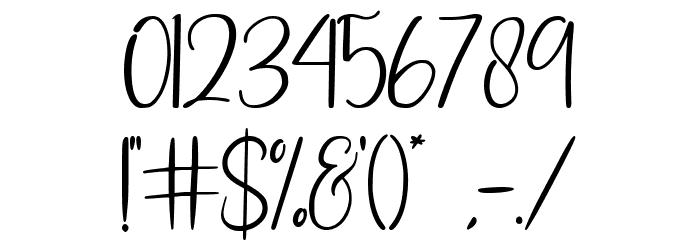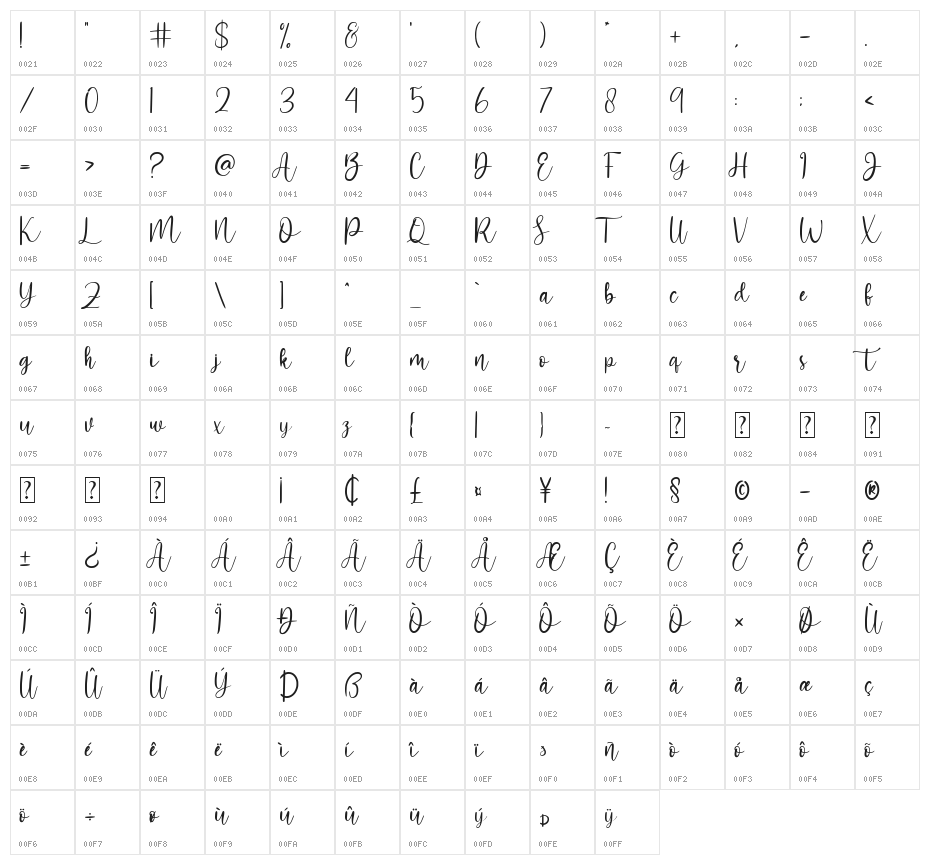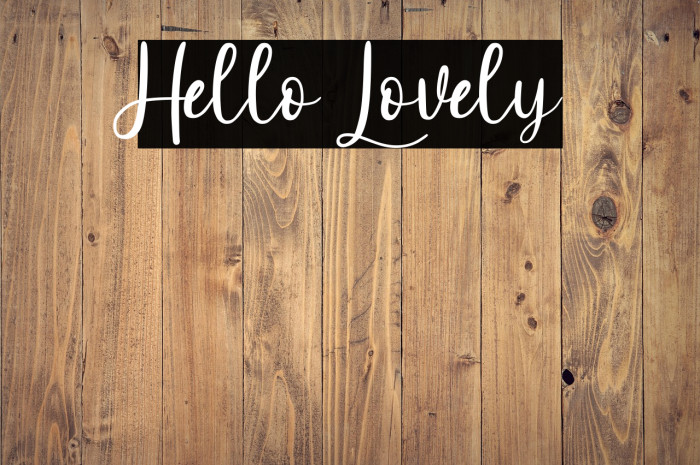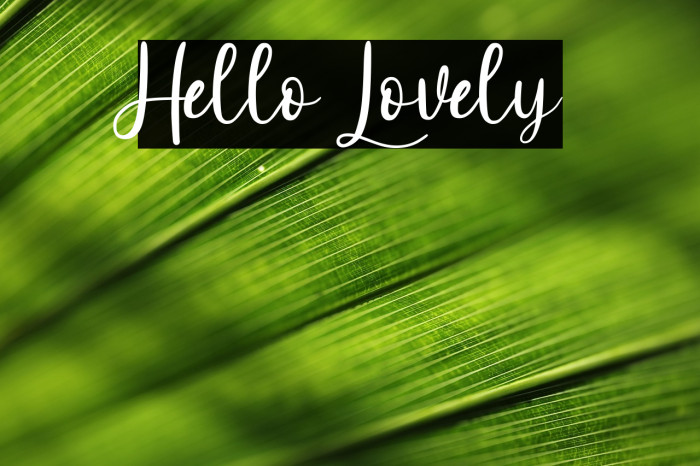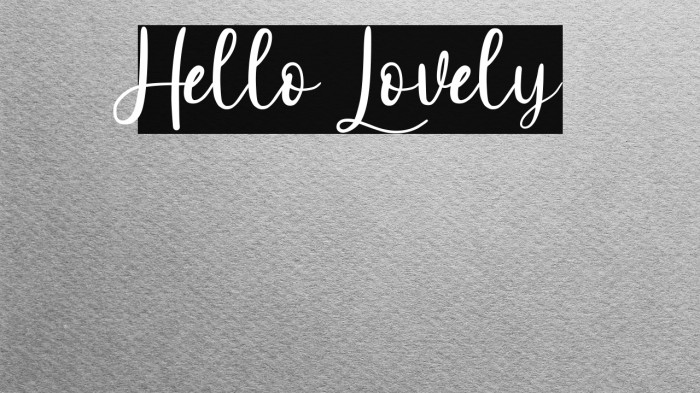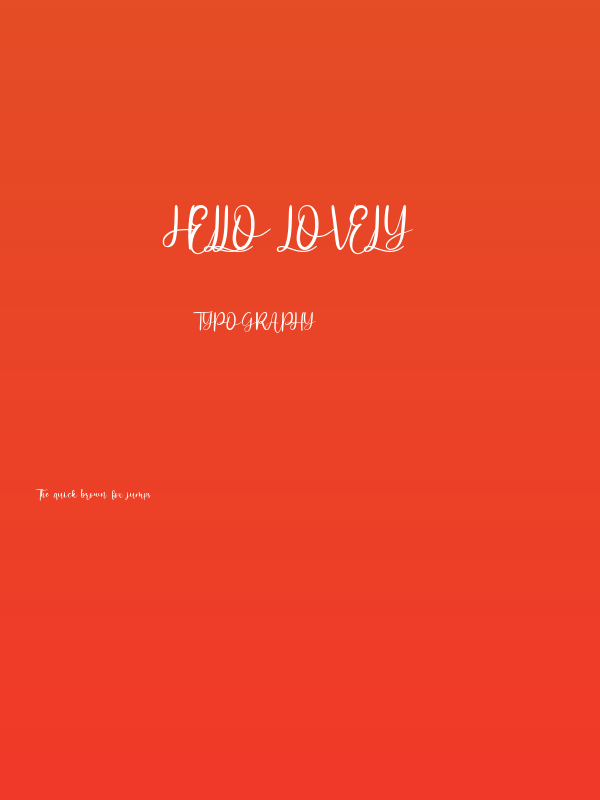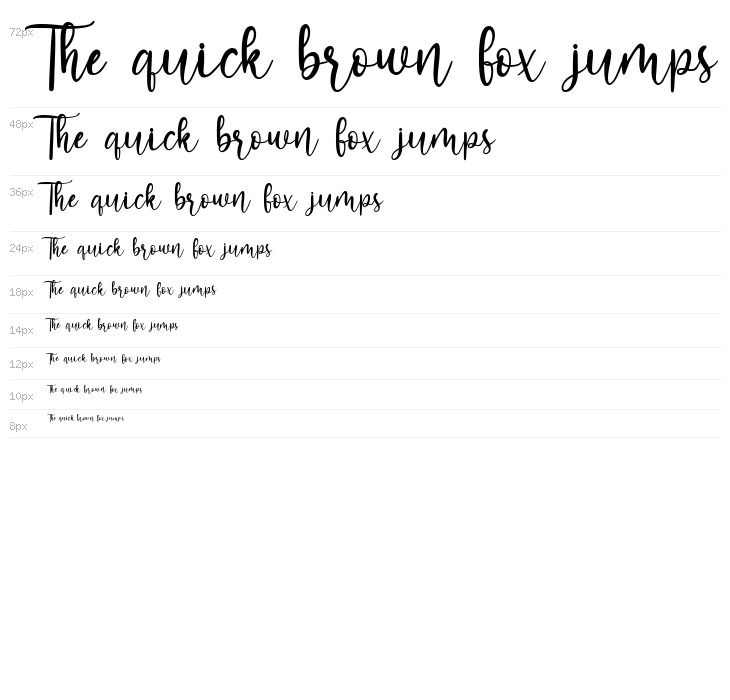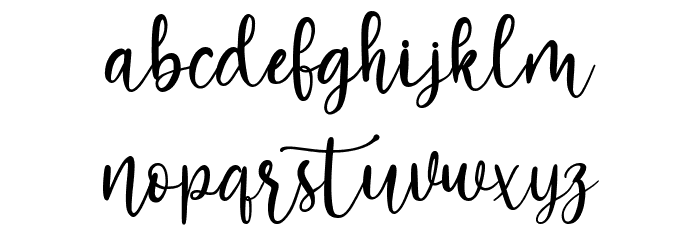
Hello Lovely Font
Hello Lovely Description
This font exudes a playful and elegant charm, characterized by its flowing, cursive script style. The letters are interconnected with smooth, sweeping curves that give it a handwritten feel. The uppercase letters are tall and graceful, while the lowercase letters maintain a consistent flow, enhancing readability. The numerals and special characters are crafted with the same fluidity, ensuring a cohesive look across all text. This font is perfect for adding a personal touch to any project, making it ideal for invitations, greeting cards, and branding materials. Its stylish appearance is both modern and timeless, appealing to a wide range of audiences.
Overall StyleElegant, Playful
Use CaseHeadlines, Invitations, Branding
Proposed ProjectsIdeal for invitations, greeting cards, branding, and personal projects.